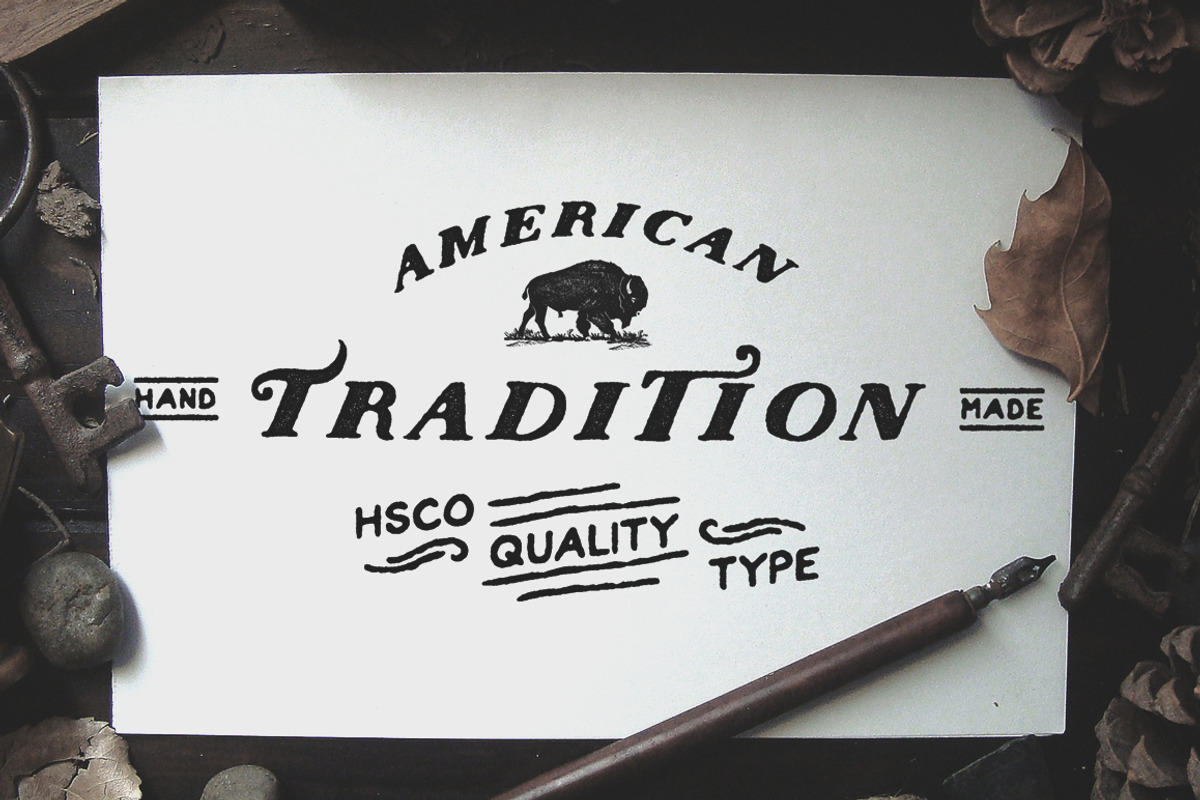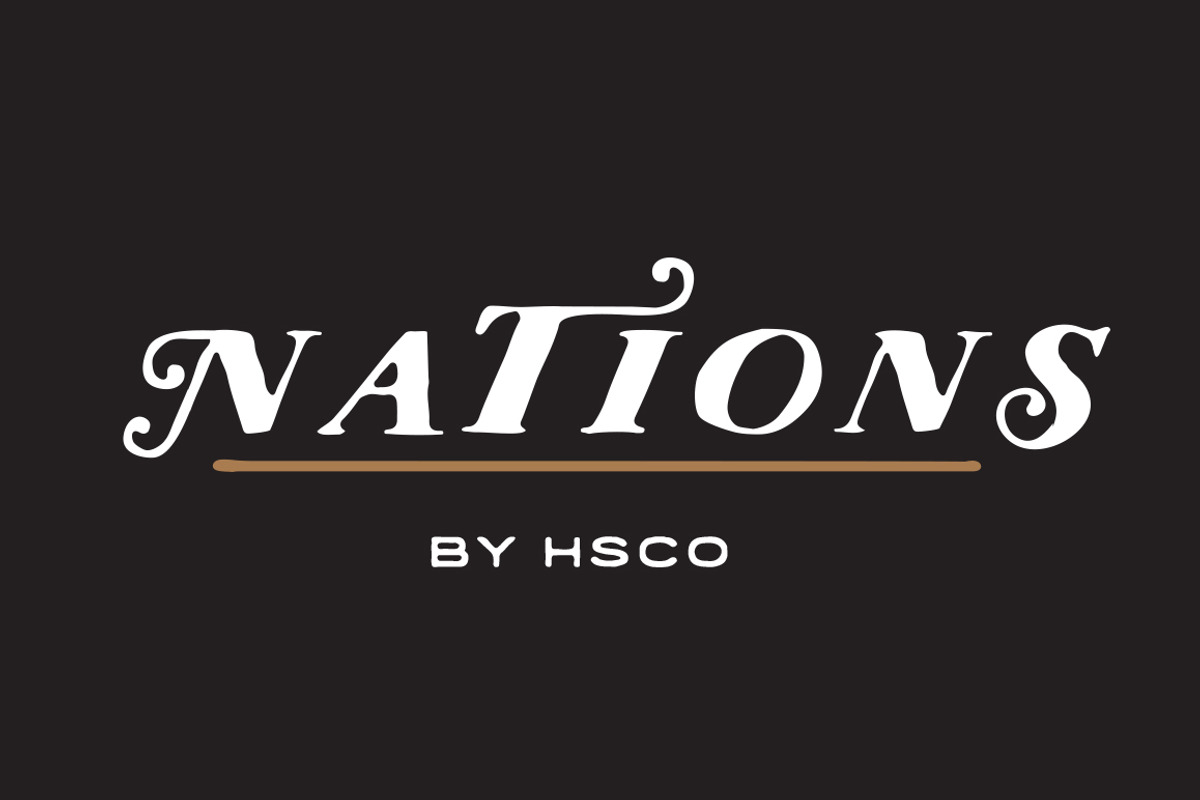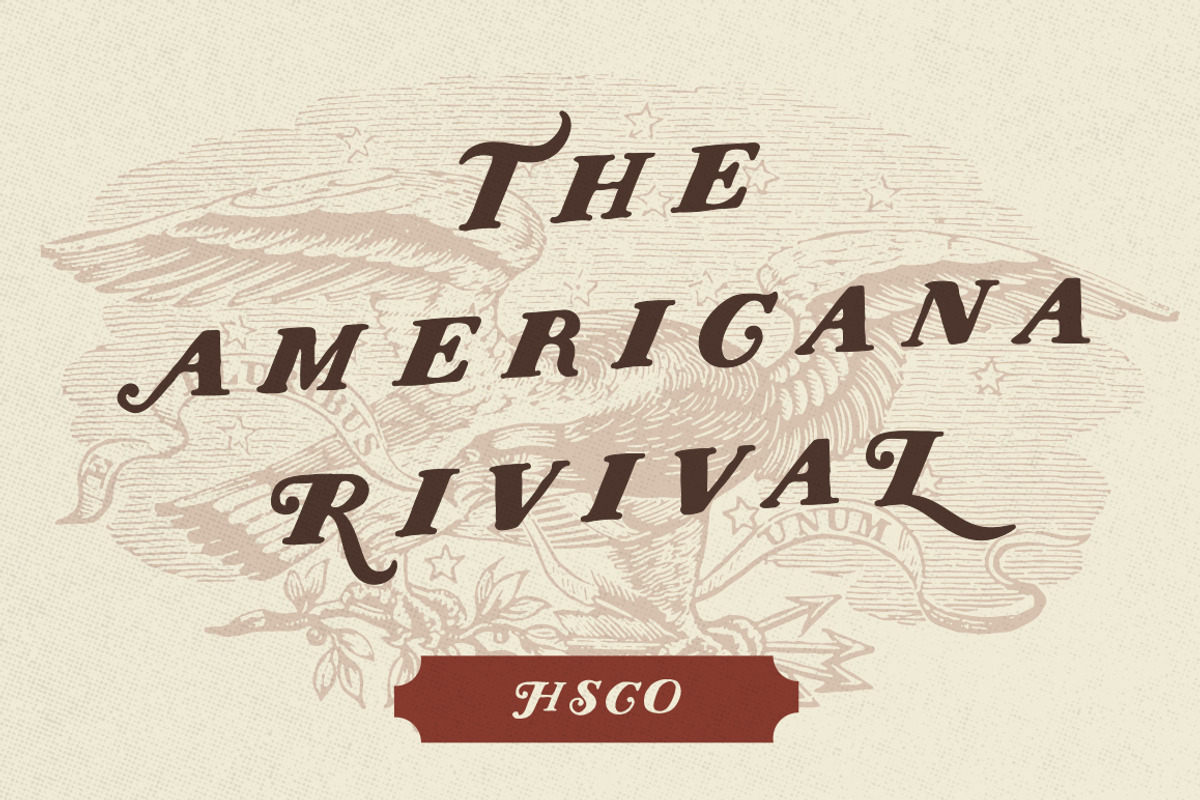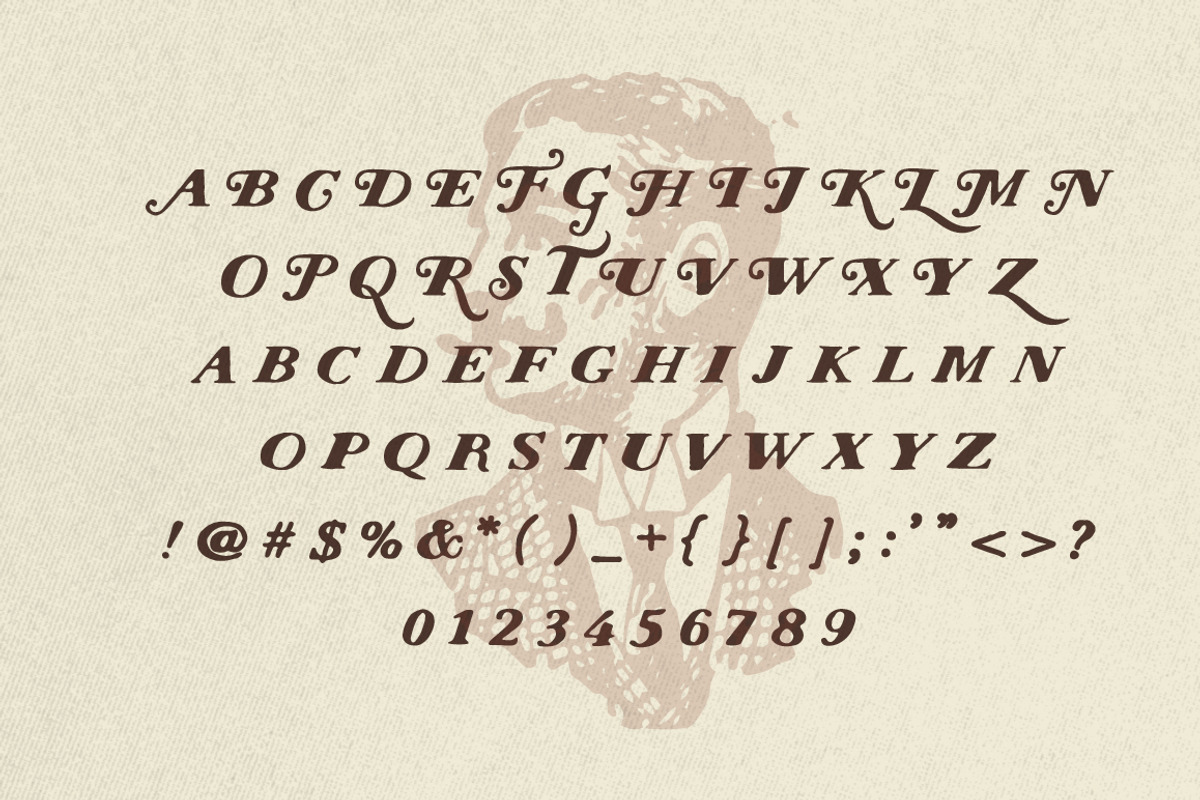
Nations - Hand Drawn Font
American Tradition is an Americana inspired typeface. "American Tradition" is a hand drawn font with interesting capital letters and alternative characters. This typeface gives a nice vintage feel to your work that may help you to achieve what your client has in mind. "American Tradition" comes in .OTF form made for the English language. It comes with all glyphs found on your keyboard and then some. This font is extremely fun to use! Use it in your next project :)